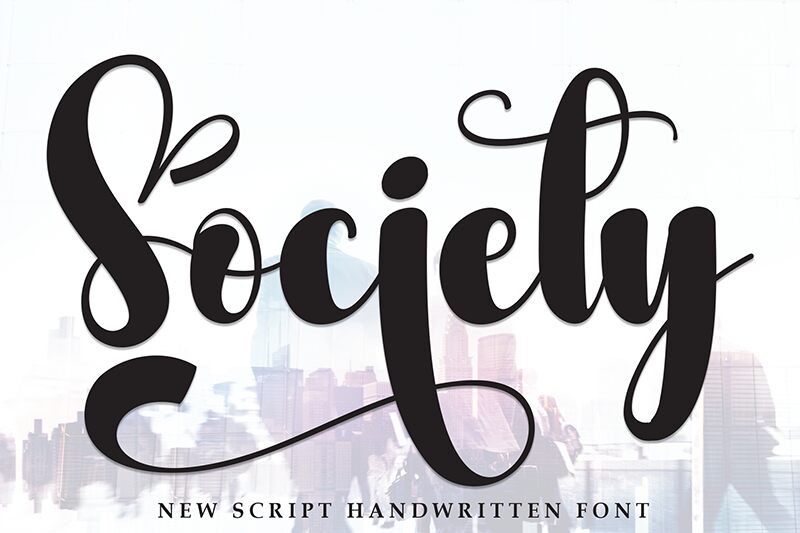
Society font designed by Andi Moz is a script free font with an elegant, flowing style. This expressive typeface has dynamic letterforms that are both inviting and sophisticated. Its stylish design is perfect for any project that needs to be done using friendly typography elements. Using it cannot go unnoticed, especially since it has all the premium quality of paid fonts.
Society is ideal for posters, social media posts, product labels, brand identity design, packaging, invitations, signatures, website headers, apparel design, blogs, advertising, and magazine covers. However, it is also usable in small body texts.
This is a sweet and friendly handwritten display font. Cute and fun, this font is ideal for writing wedding invitations, cards, or any other design that might need a playful touch!